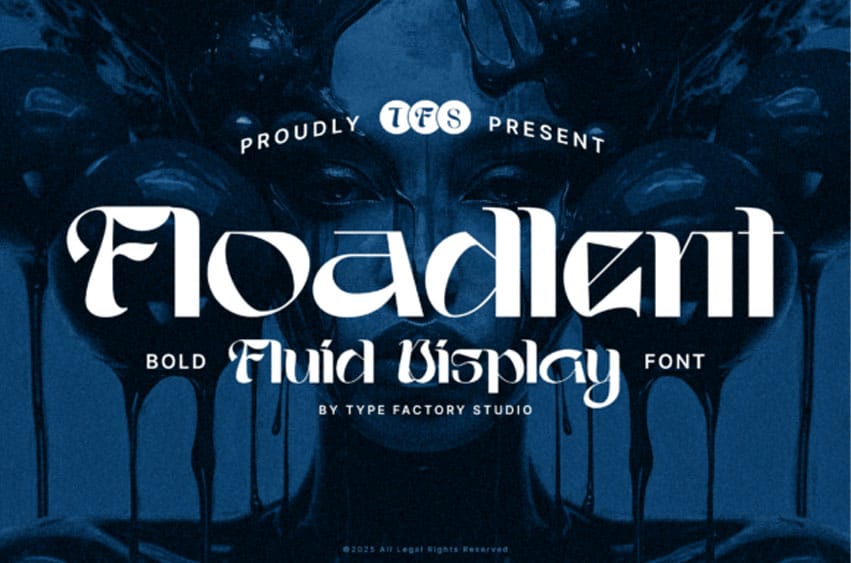
Floadlent Font is a bold display serif typeface that blends flowing curves with sculpted letterforms. The design combines strong vertical structure with smooth, fluid strokes, creating a dramatic and expressive visual rhythm.
Distinctive terminals and refined contrast give Floadlent a striking personality, making it suitable for headlines, editorial layouts, fashion branding, posters, packaging, and statement typography. Its decorative details remain balanced with readability, allowing it to stand out in large-format applications.
The typeface includes uppercase, lowercase, numerals, ligatures, punctuation, symbols, and multilingual support, providing flexibility for various creative and commercial projects.
Floadlent is designed to bring movement, contrast, and character into modern display typography.